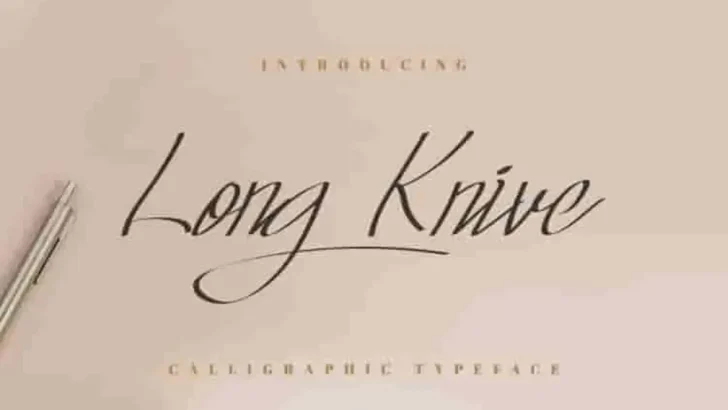
Long Knive Calligraphy Font
Long Knive ! This is a new modern script handwriting calligraphy style font. It has a fresh, elegant, natural and stylish glyphs.